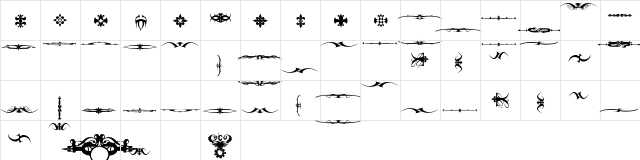
Marquis De Sade Ornaments Regular
Design Context for Marquis De Sade Ornaments Typeface
Marquis De Sade Ornaments is built around its visual character rather than neutral utility — its distinctive forms are designed to make an impression at display sizes.
Font Pairing: Pair with a clean neutral sans-serif for body copy to let Marquis De Sade Ornaments's character lead without overwhelming the composition.
Pro Tip: Use Marquis De Sade Ornaments exclusively at display sizes — it was designed to be seen, not read at length. Let a neutral companion handle body copy.